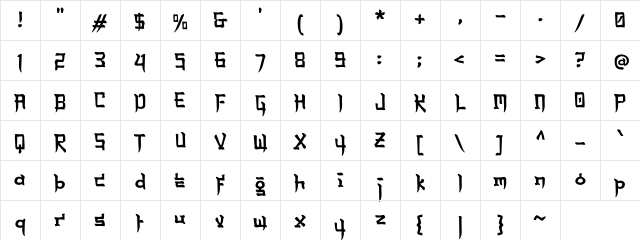
Complete a Annyeong Haseyo Regular glyph index. Displaying only characters natively supported by a Annyeong Haseyo Regular font.
a Annyeong Haseyo is a composed and adaptable typeface that performs quietly and consistently across a wide range of design contexts.